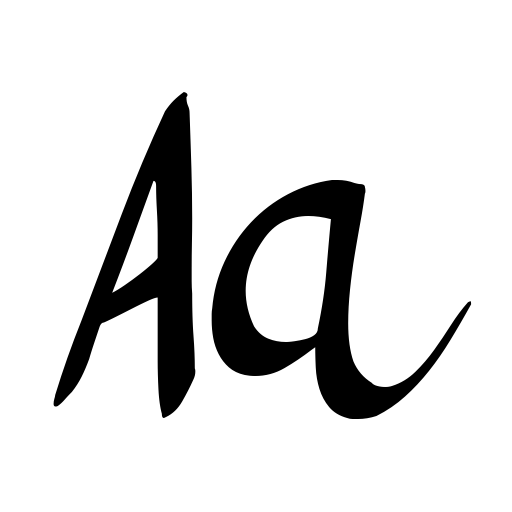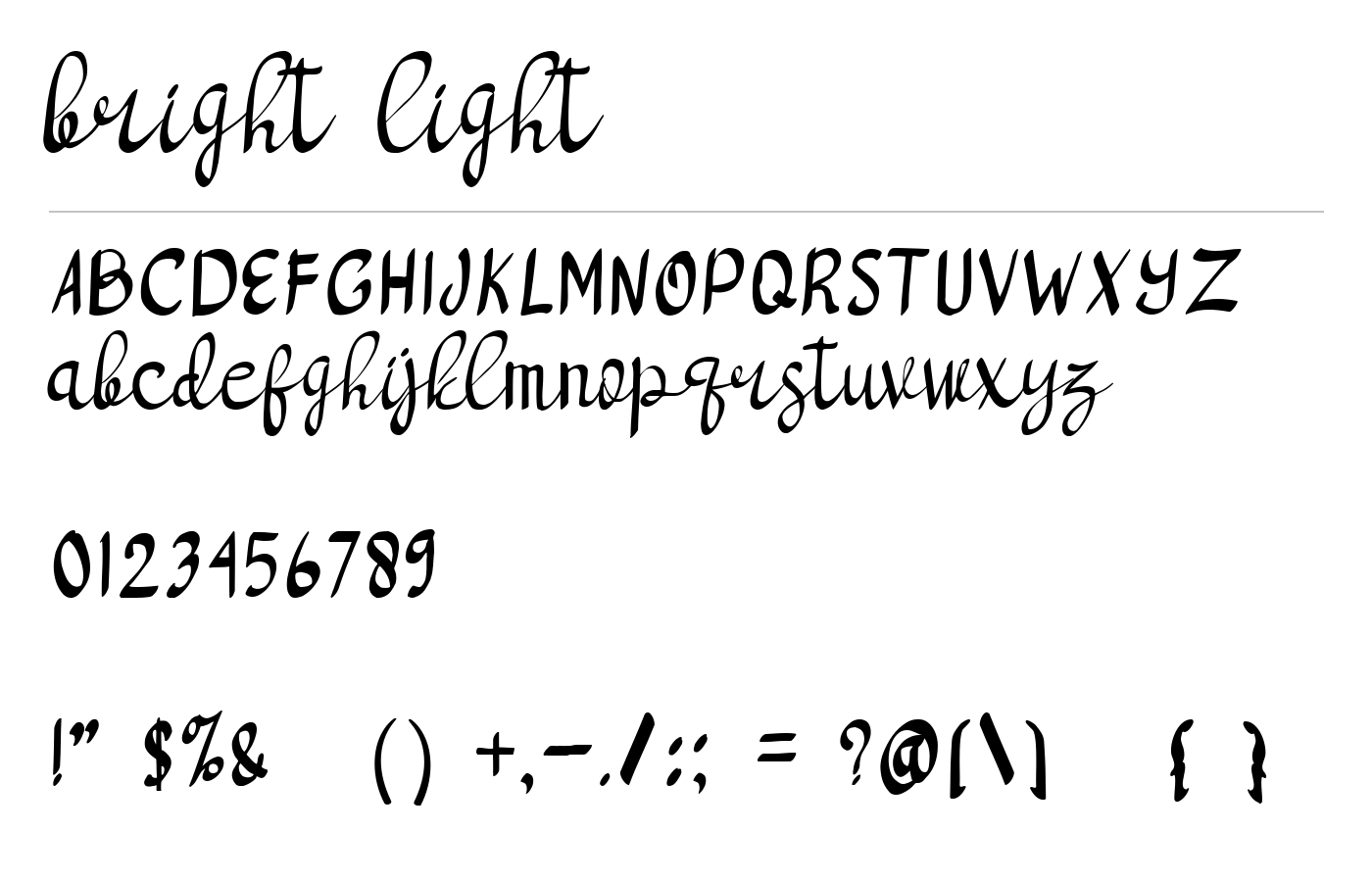
Bright Light is a lively script font with a casual, hand-drawn feel, featuring tall, slender letterforms and smooth, flowing strokes. Its mix of playful uppercase characters and elegant lowercase letters makes it well-suited for creative design projects, invitations, and branding that aim to convey warmth and personality. This font's distinct charm and readability shine best in headlines and decorative uses where a friendly, artistic touch is desired.
bright light Font
About bright light Font
| Font family | bright light Font |